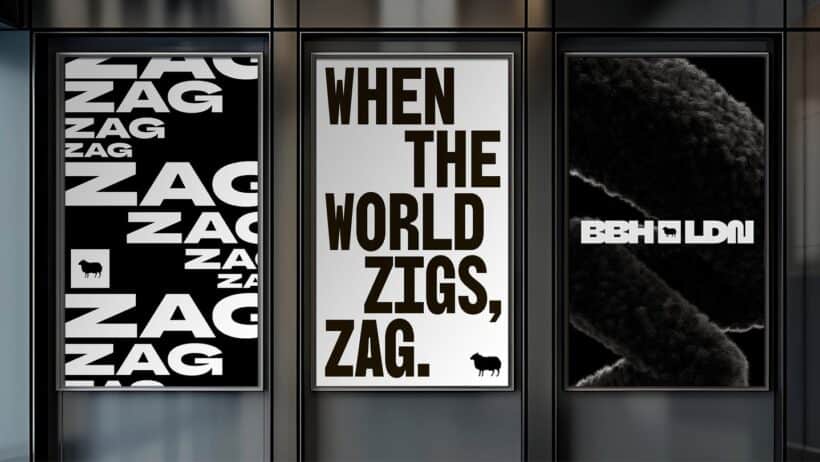
Typeface Strategy, Zag Identity Design to Elevate Brand Recognition
BBH’s first rebrand in 44 years, three bespoke typefaces meet playful zag glyphs and bold motion, a visual identity with attitude.
BBH’s Bold Rebrand: Type, Zag, Motion
As a branding curator with years of practice, I flag BBH’s first visual overhaul in 44 years as required reading. Studio Drama helped produce three bespoke typefaces, each honoring a founder. They also built a library of zag glyphs that transform heritage into playful assets. The project balances respect and rebellion, with motion and tactile 3D objects that anchor the system in cultural memory. This is a masterclass in translating an agency ethos into a flexible design language.
Every element here feels intentional, from weight morphs to tactile zags sculpted into everyday objects. The three typefaces give density, voice, and mischief, so teams can zag with clarity across print and screen. Releasing the typefaces open source signals a generous intent, inviting designers to iterate beyond BBH. Read the full breakdown for process detail, motion tests, and images that show how craft and strategy converge.
Look closely at the 3D zags, they reframe mundane objects with unexpected humor and skill. Motion studies clearly keep energy high, while typography holds structure and a distinct BBH personality. This rebrand is pragmatic, playful, and principled, a rare blend brands should study and adopt.